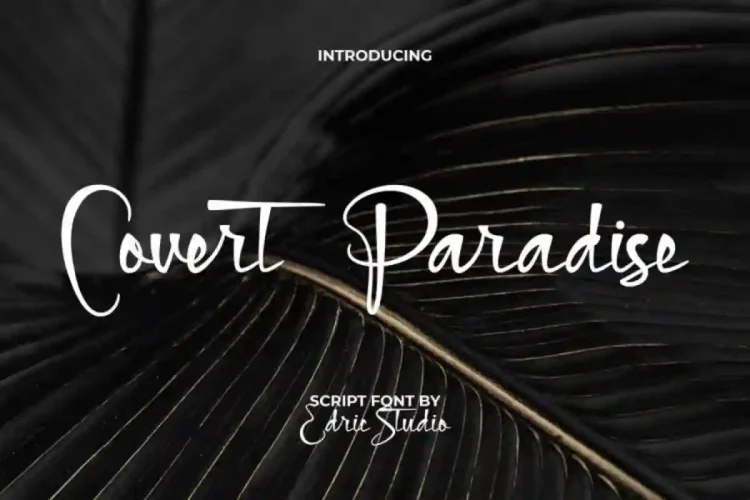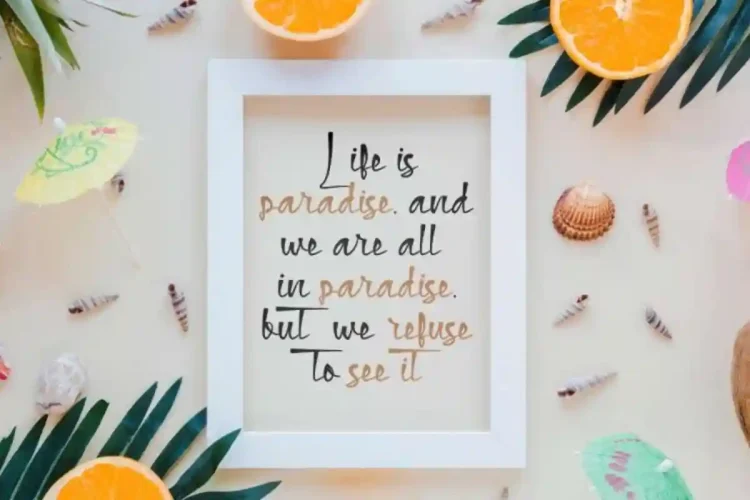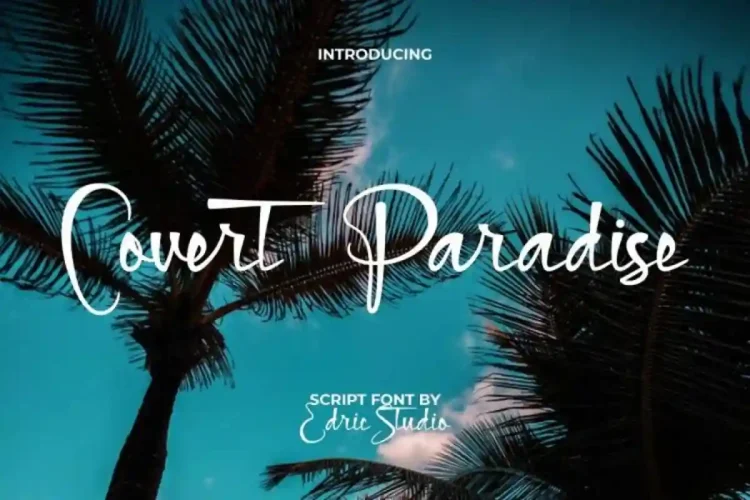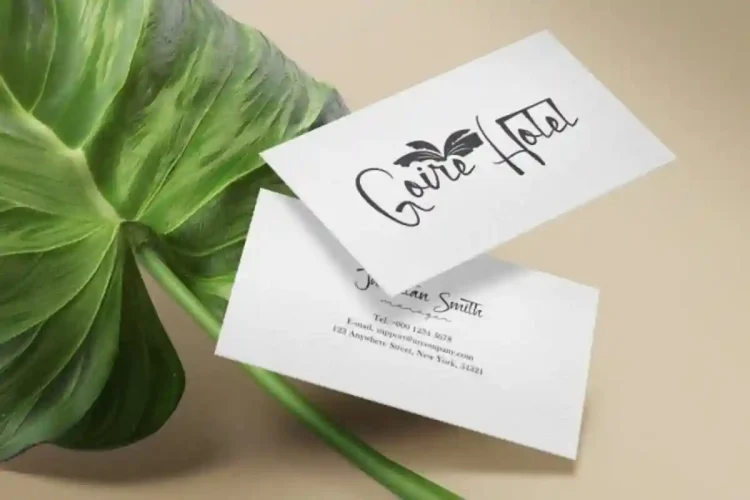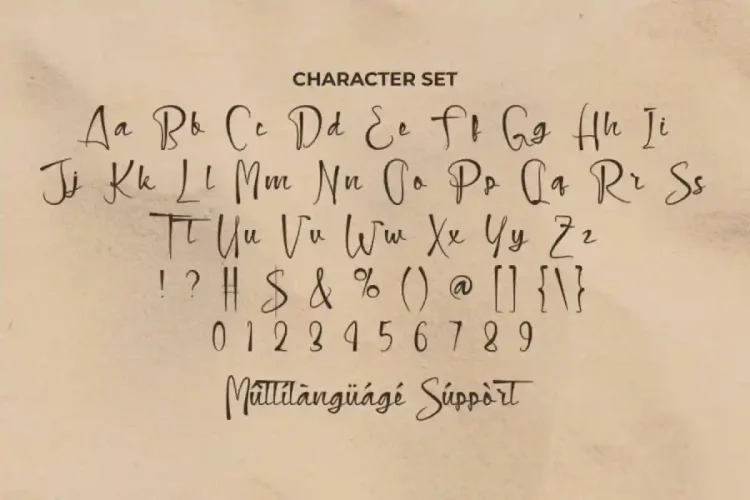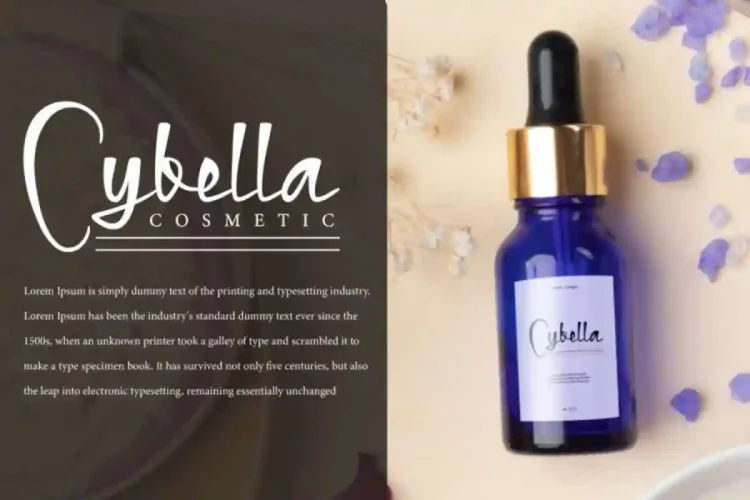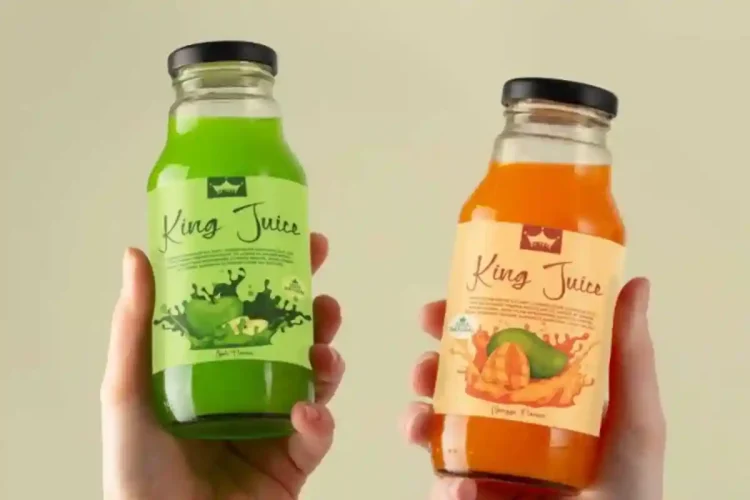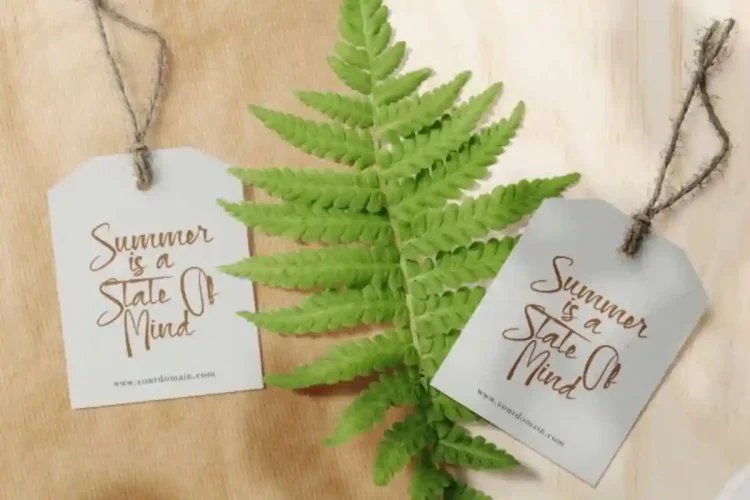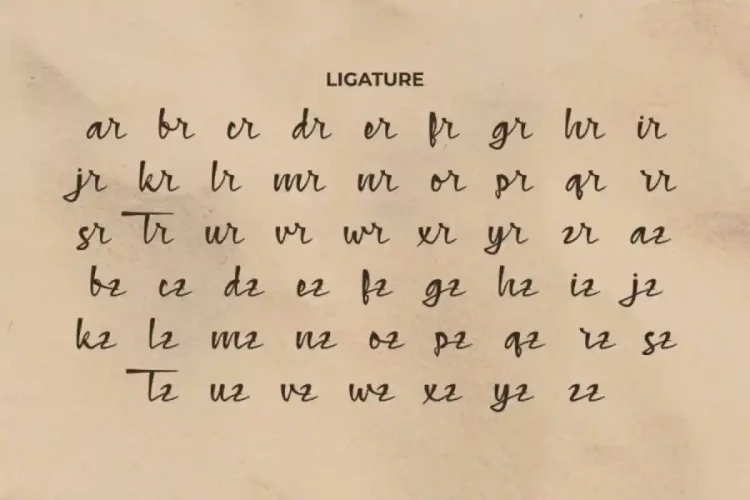
Covert Paradise
Covert Paradise Script Font is a stylish script font with flawless look, exclusively created by EdricStudio. With its flawless balance of thick and thin strokes, this font delivers a fresh, summer-inspired vibe that instantly elevates your creative projects.
Covert Paradise Script Font crafted with precision, this script font includes a complete set of uppercase and lowercase characters, numbers, punctuation, ligatures, and symbols. It has a stunning characters set, perfectly managed with well spaced and kerning.
Covert Paradise Script Font is a playful typeface with unique decoration in each character. Ready to use both on Windows machine or Mac with simple installations. It’s tested to work well in the Adobe Apps (Illustrator, Adobe InDesign, Adobe Photoshop) even work on Microsoft Word. PUA Encode Characters means you can access all the glyphs and other additional characters easily – Fully accessible without additional design software.